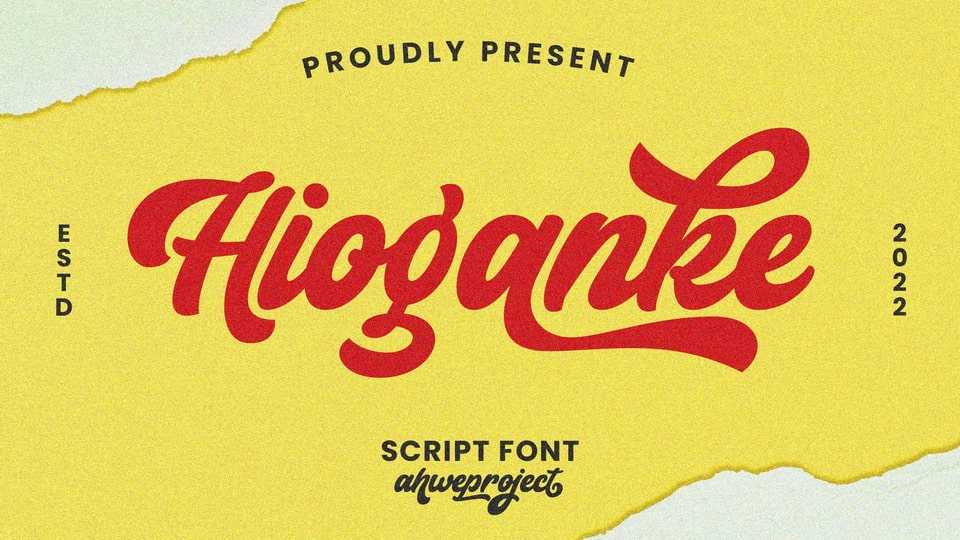
Download Hioganke font, an urban script typeface. It was created to design logotypes with an urban style, all of the graphic stuff such as badges, signs, esport, headlines, urban design, t-shirt/apparel, poster, etc.